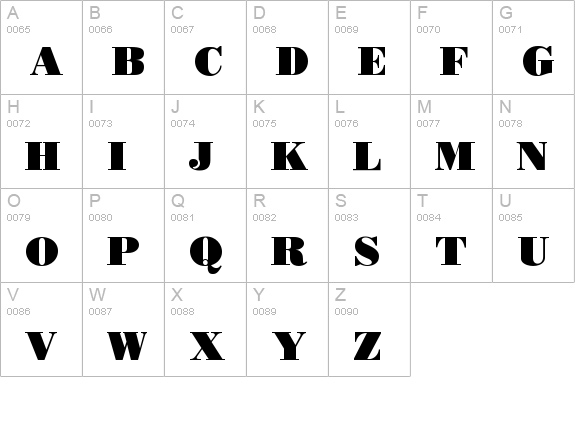
Bodoni Poster SSi Poster Bold Font Details
Bodoni Poster SSi Poster Bold is a strong, high-contrast variant in the Bodoni typeface family \xE2\x80\x94 well suited to headlines, attention-grabbing titles, and strong calls-to-action.
Bodoni Poster SSi Poster Bold font is a stunning display typeface that exudes elegance and sophistication. With its bold and eye-catching design, this font is perfect for making a statement in posters, headlines, and other large-scale projects. The clean lines and classic serifs of Bodoni Poster SSi Poster Bold font give it a timeless appeal that is sure to capture attention. The best part? Bodoni Poster SSi Poster Bold font is available for free download at FontsMarket.com. Now you can elevate your designs with this striking typeface without any cost. Whether you're working on a print project or a digital design, Bodoni Poster SSi Poster Bold font is a versatile choice that will add a touch of refinement to your work. Download it today and start creating impactful designs with this stylish and sophisticated font.